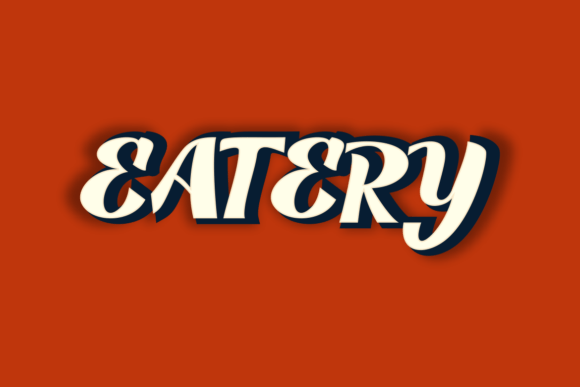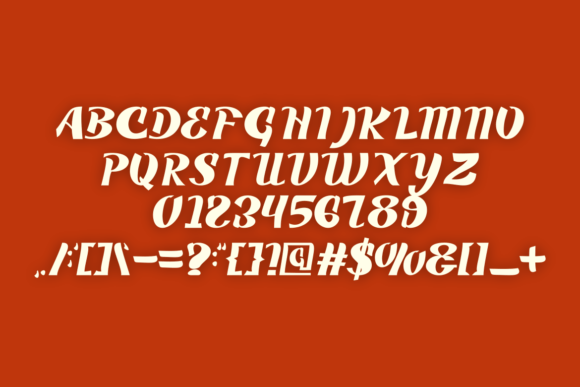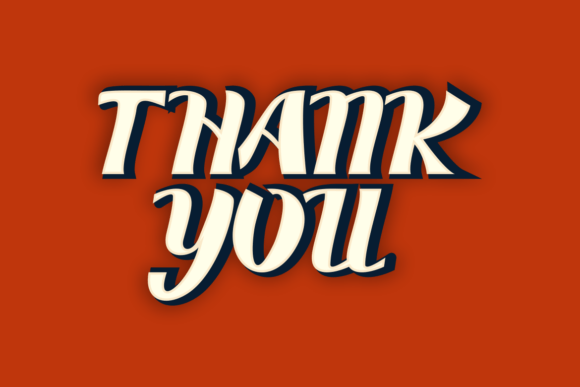
Introduction to Medrek Font
Have you ever stumbled upon a font that immediately sparks your creativity? That’s exactly what happened to many designers when they discovered the Medrek Font. Its bold, retro-styled display font is like a breath of fresh air, perfect for unleashing your creative potential. With its unique characters, this font is a game-changer for designers looking to add a touch of personality to their projects.
The Medrek Font is a valuable resource for designers, offering a high-quality design solution for a wide range of creative projects. Whether you’re working on a signature, stationery, or a logo, this font is sure to impress. Plus, its transparent background makes it easy to customize and integrate into any design. And the best part? You can download it for free, making it an invaluable addition to any designer’s toolkit.
- High-quality design for creative projects, ideal for designers and artists looking for a unique font.
- Unique characteristics, such as intricate details and bold lines, make it an excellent choice for creative projects that require a statement font.
- Designed to be highly legible, even at small font sizes, making it perfect for a wide range of design applications.
- High quality design: The Medrek Font is well-crafted and visually appealing, making it perfect for any creative project.
✨ One of the standout features of the Medrek Font is its versatility. It can be used for a wide range of design projects, from logos to typography-based designs.
- ⚠️ Limited font styles: While the Medrek Font is well-designed, it’s limited in terms of font styles, which may not be suitable for projects that require a wide range of font options.
- ⚠️ May not be suitable for complex designs: Due to its simplicity, the Medrek Font may not be the best choice for complex designs that require a lot of customization.
Overall, I’m impressed with the Medrek Font and would definitely recommend it to designers looking for a high-quality, free design resource. With its transparent background and versatility, it’s an excellent addition to any design arsenal.
The Medrek Font is a high-quality design resource ideal for creative projects. It features a transparent background, making it versatile for various design needs.
The Medrek Font is suitable for a wide range of creative projects, including logos, business cards, brochures, and social media graphics. Its high-quality design makes it an excellent choice for professional and personal projects alike.
Compared to Medrek Font, Ostrich Sans has a more minimalist approach, making it perfect for projects where simplicity is key. It lacks the intricate details found in Medrek Font but excels in providing a clean and legible reading experience.